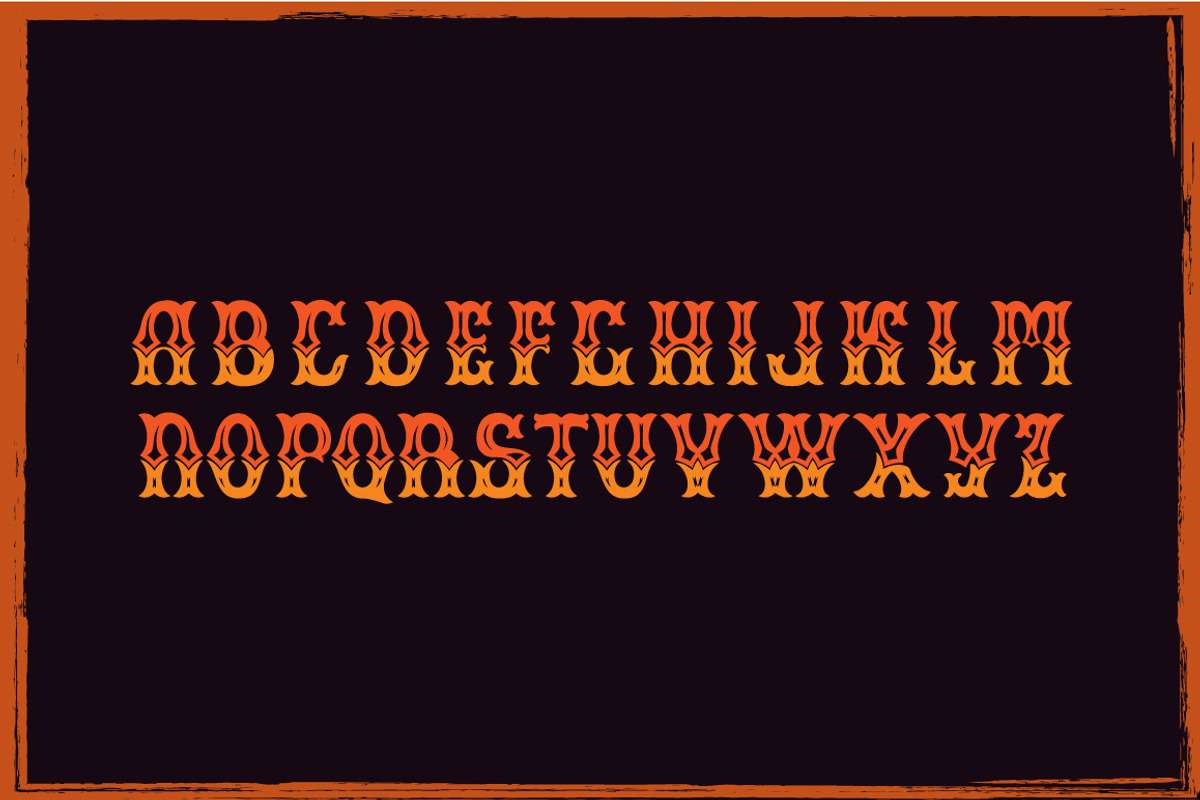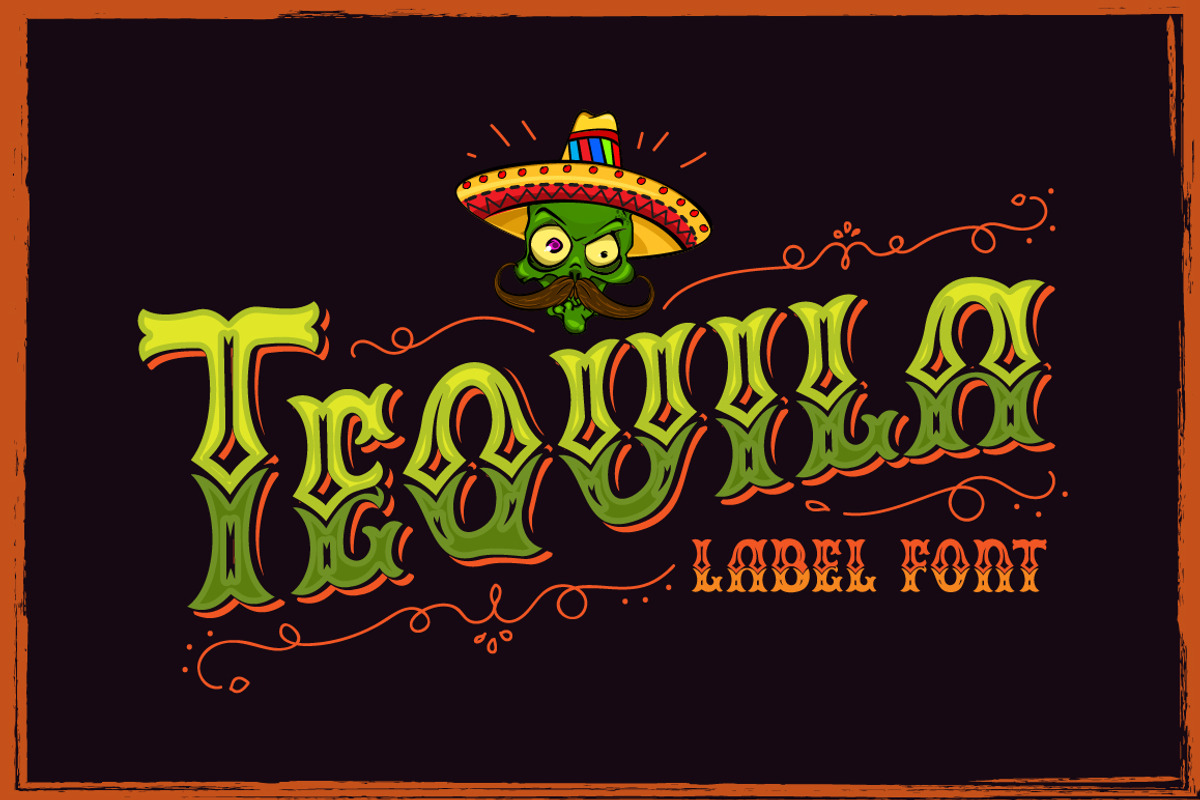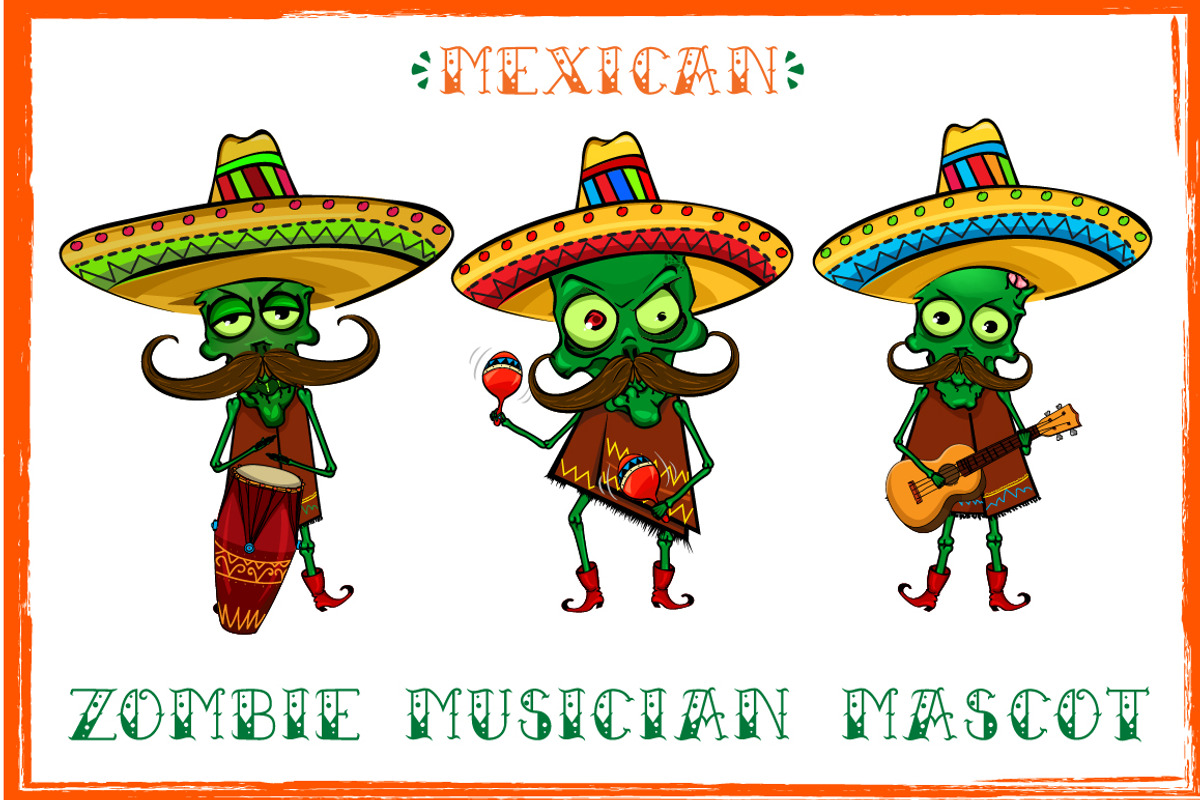
Tequila bundle, font, mascots & more
- Tequila1 Ultra-condensed Regular
- Tequila Regular
Tequila bundle, font, mascots & more by VioSilent fits naturally into Branding, posters, packaging, typography.